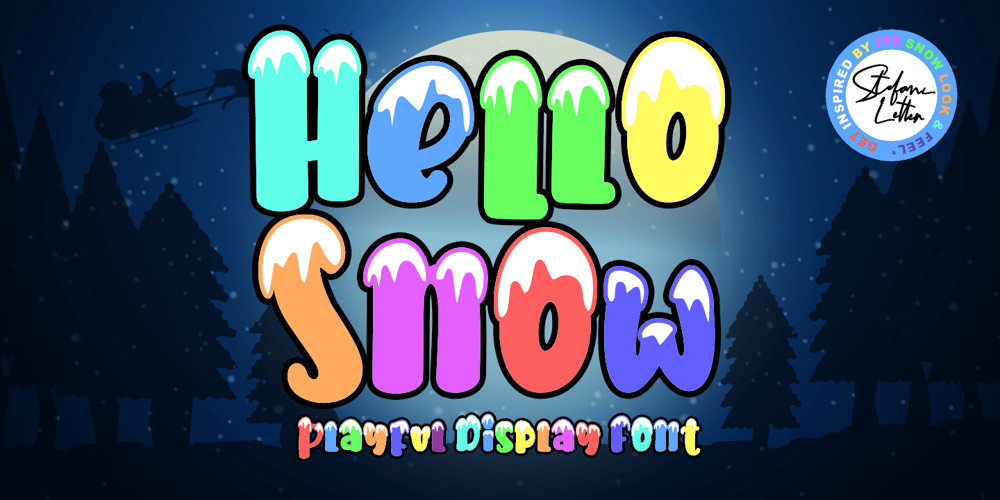
Hello Snow Swash Font Family was designed by Stefani Tri Rosa Setiati Christiana and published by Stefani Letter. Hello Snow Swash contains 2 styles and family package options. Hello Snow is a sweet and snowy display font with a magical feel. Each of its letters is covered in snow, making it the ideal font for any Winter-project! It embodies playfulness and authenticity and is the perfect choice for any children’s activity, Christmas, thanksgiving, poster, logo, packaging, or school project. Fall in love with its incredibly adaptable style and use it to create amazing designs! Add this beautiful display font to each of your creative ideas and notice how it makes them stand out!